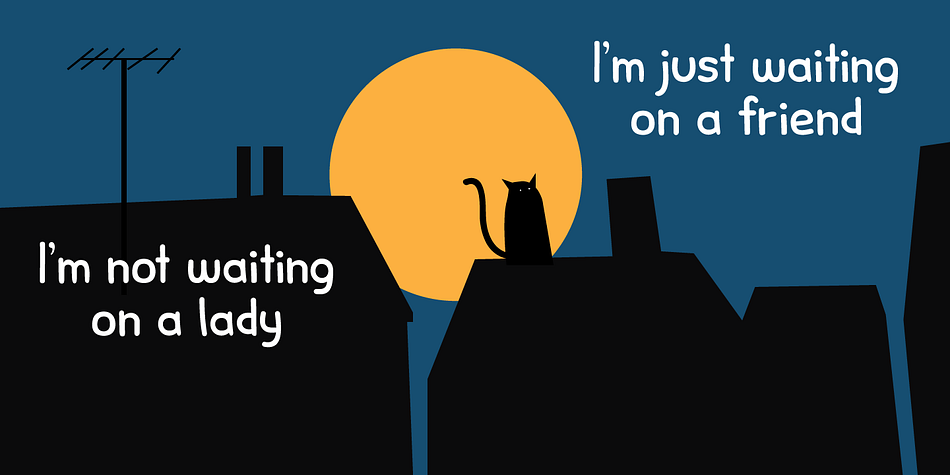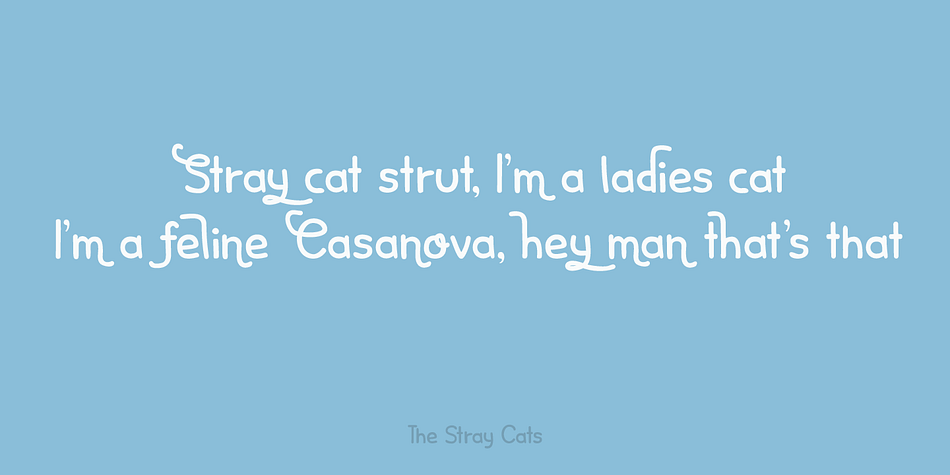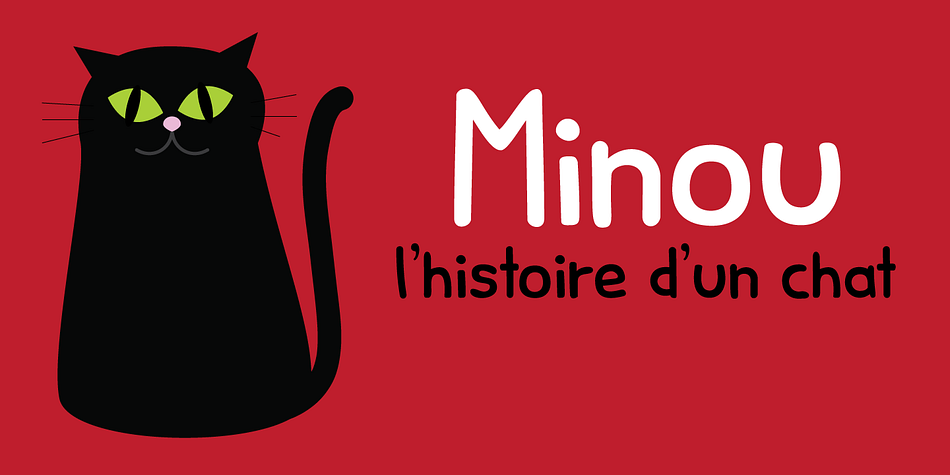
Designed by David Kerkhoff, Minou is a comic and hand drawn font family. This typeface has four styles and was published by Hanoded.
Minou is a French cat’s name. There are more: you could name your cat Léo, Fripouille, Orion, Orphée or Tigrou, but I kind of like Minou.
Minou font is a very cute, handmade affair, that started from some doodles I had drawn. Use it for children’s book covers, pyjama party posters, toy packaging and inspirational quotes. I am sure it’ll do the job purrfectly!